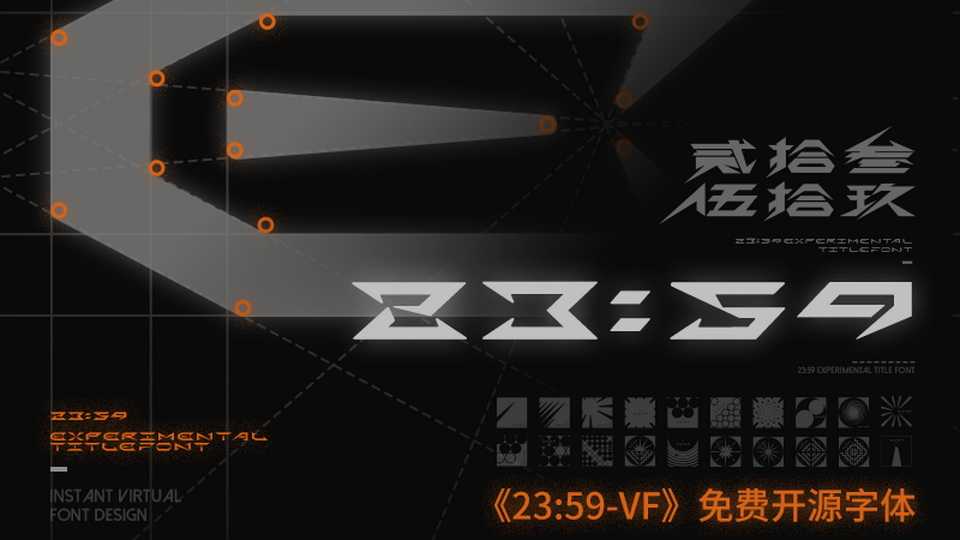
Download 23:59 font, an experimental decorative font that created based on the thoughts about “time”. Sharp, strong, lively, and mysterious are the main qualities of 23:59 font, making it ideal for sci-fi, modern, futuristic, and trendy film and game visual designs.
Designer: DJSHANG DESIGN